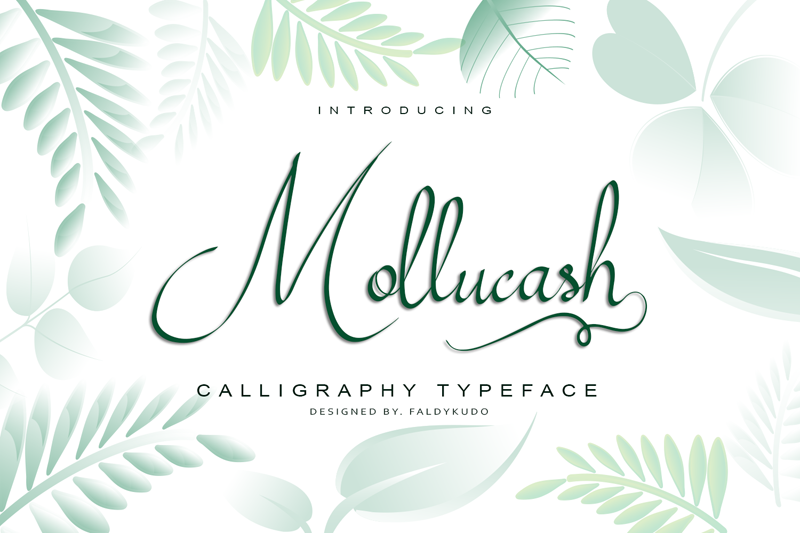
Font name: | Mollucash |
Author: | Faldy Kudo |
Mollucash is a calligraphy typeface (hand drawn) It is perfect for branding, wedding invites and cards, fashion and creative quotes. Mollucash includes full set of beautiful uppercase and lowercase letters, numerals, a large range of punctuation and ligatures and stylistic alternates, giving realistic hand-lettered style. You will get: Mollucash OTF Mollucash TTF Mollucash WOFF NOTE: in demo version no stylistic alternates, ligature and swash included. to order to use special character / ligature / stylistic alternates or swash, you need a program that supports OpenType features such as Adobe Illustrator CS, Adobe Photoshop CC, adobe Indesign and Corel Draw. Photoshop CC and higher have a glyph panel where you can access the swashes & alternates. Select the font and go to Window Type - Glyphs and click on the glyph you want to use. For Illustrator choose Type Glyphs or Window Type & Tables Glyphs. for license and special offer please visit here https://thehungryjpeg.com/product/3493618-mollucash/ my other beautifull font https://thehungryjpeg.com/product/3490791-south-wark-s/ https://thehungryjpeg.com/product/3490886-saturday-night/ https://thehungryjpeg.com/product/3491441-charlottes/ |